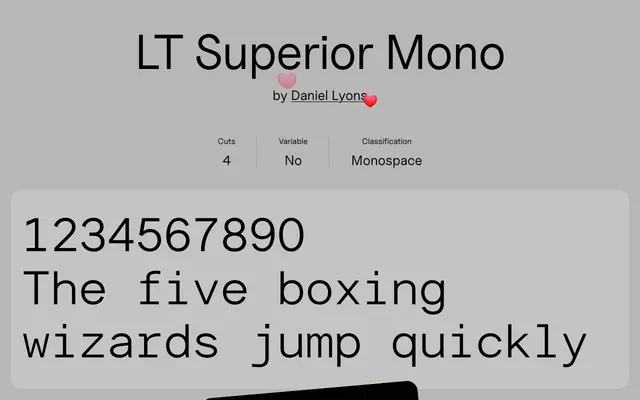
LT Superior Mono
A four-weight monospaced family by Daniel Lyons, available free for commercial and personal use under the SIL Open Font Licence.
Released in four cuts with no variable axis, LT Superior Mono is a fixed-width typeface designed by Daniel Lyons and distributed via Uncut under the SIL Open Font Licence 1.1. The licence permits commercial use, modification and redistribution with some conditions attached. Suited to code editors, terminal interfaces and any typographic context requiring a reliable monospaced workhorse.
Explicitly classified as Monospace by the foundry; a fixed-width typeface distributed under an open licence.